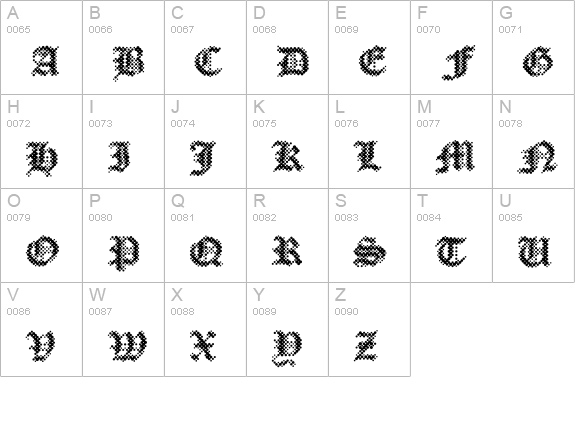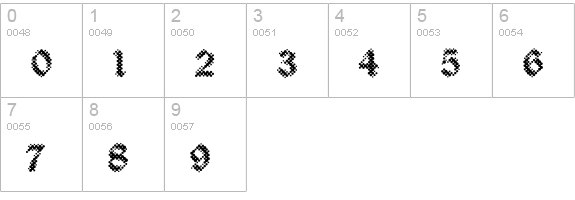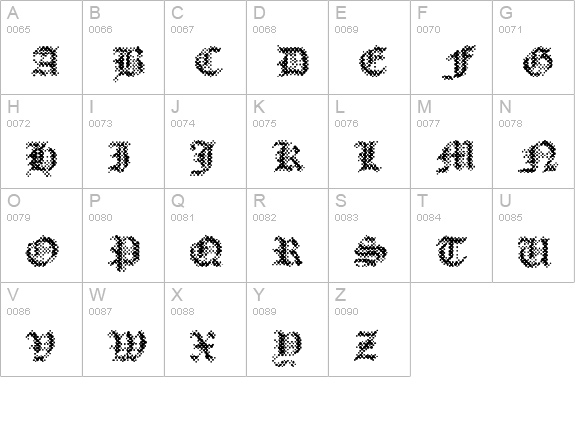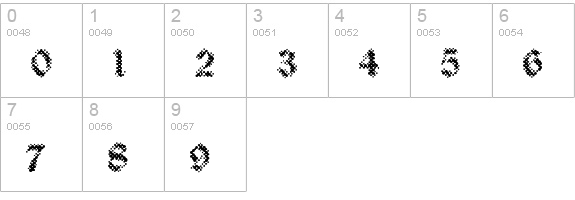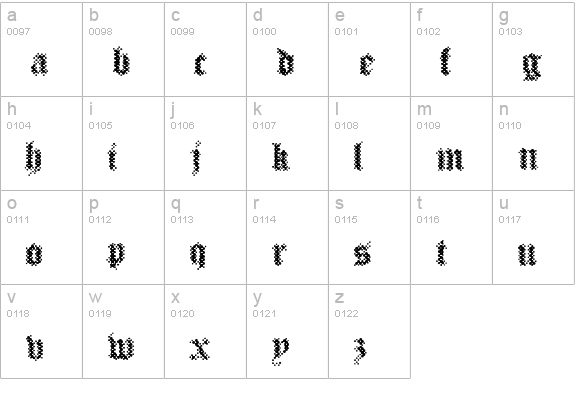
PalimpsestDark Font Details
PalimpsestDark font is a captivating and versatile typeface that exudes an air of mystery and sophistication. With its bold and distinctive letterforms, this font is perfect for adding a touch of elegance to any design project. Whether used for headlines, logos, or branding materials, PalimpsestDark font is sure to make a lasting impression. The unique design of PalimpsestDark font strikes a perfect balance between modernity and timelessness, making it ideal for a wide range of applications. Its dark, dramatic aesthetic adds a touch of intrigue and depth to any text, drawing the viewer in and captivating their attention. Best of all, PalimpsestDark font is available for free download at FontsMarket.com. Now you can add this stunning typeface to your collection without any cost, making it an essential addition for designers, creatives, and typography enthusiasts alike. Don't miss out on the opportunity to elevate your projects with the alluring charm of PalimpsestDark font.